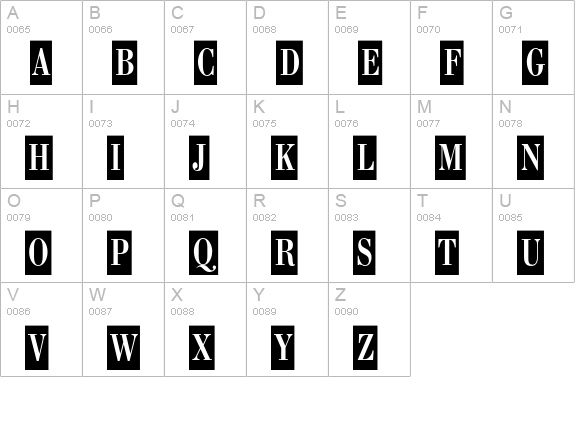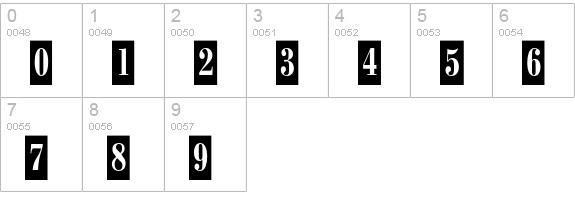
PT BodoniCameo Cyrillic Font Details
PT BodoniCameo Cyrillic is a stunning and elegant typeface designed for those who appreciate classic beauty and sophistication. Its graceful serifs and refined letterforms exude a sense of timeless charm, making it perfect for projects that require a touch of luxury and sophistication. This exquisite font features Cyrillic characters, allowing you to create visually stunning designs that cater to a global audience. Whether you are working on branding, editorial design, or any other creative project, PT BodoniCameo Cyrillic will bring a touch of class and elegance to your work. Best of all, PT BodoniCameo Cyrillic is available for free download at FontsMarket.com, making it accessible to all designers who want to elevate their designs with this beautiful typeface. Don't miss out on this opportunity to add a touch of sophistication to your projects with PT BodoniCameo Cyrillic!